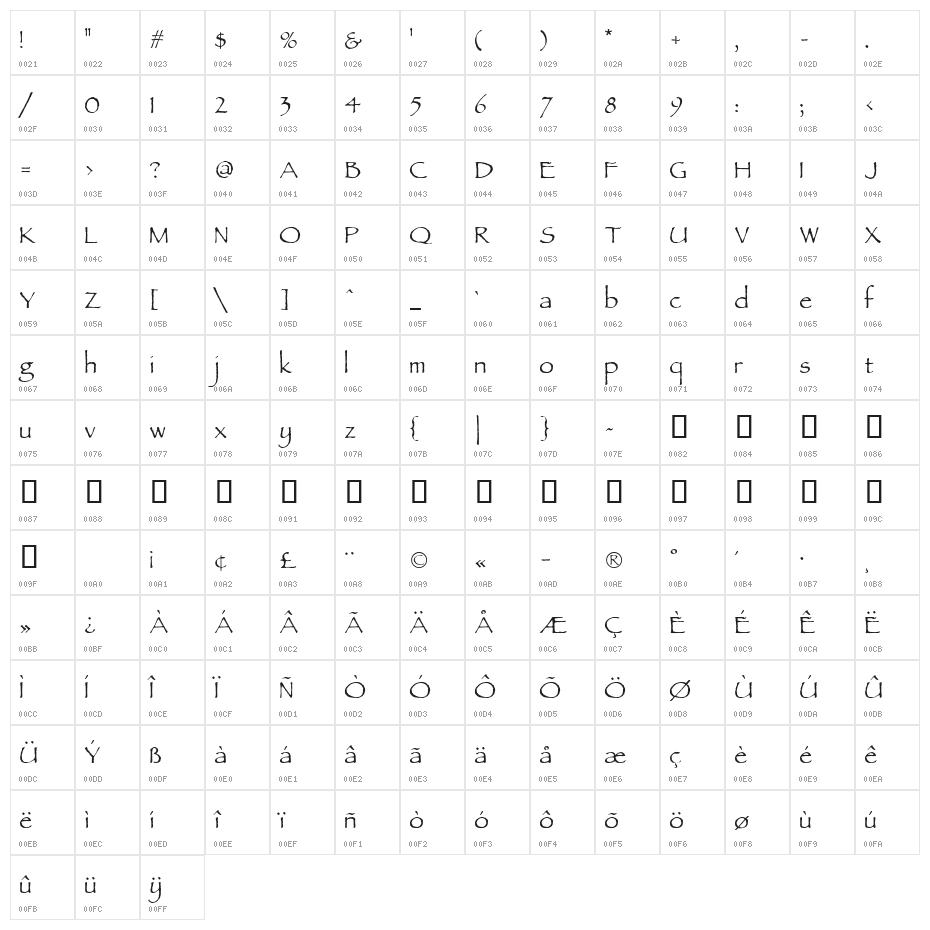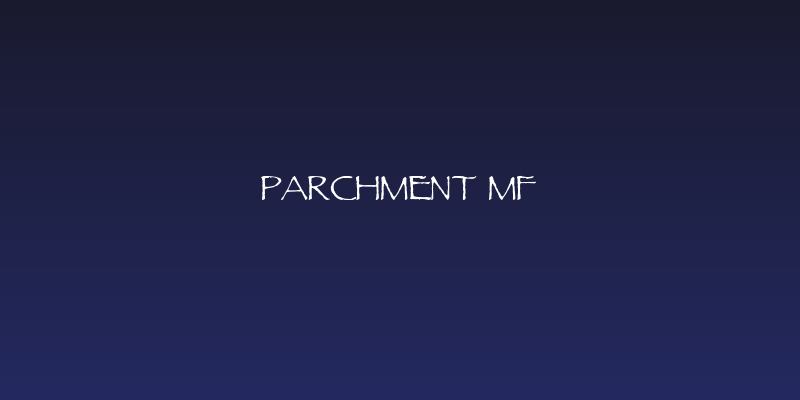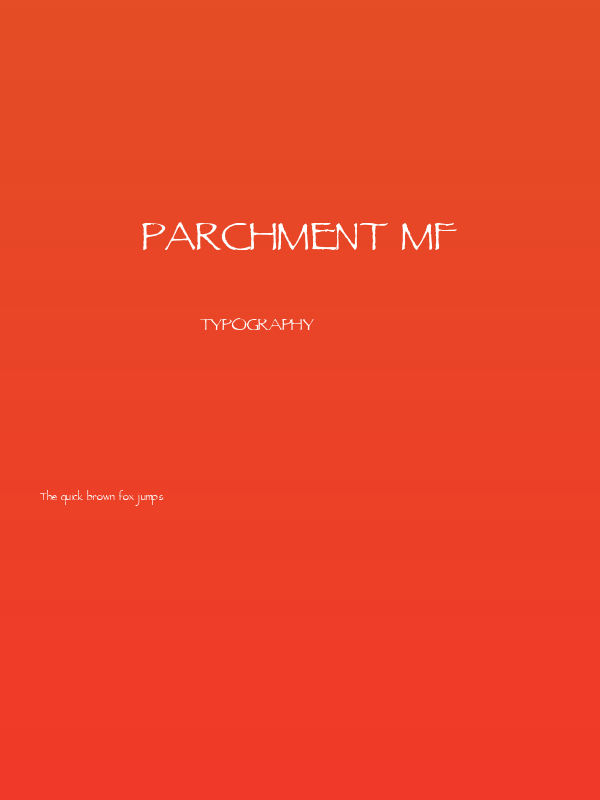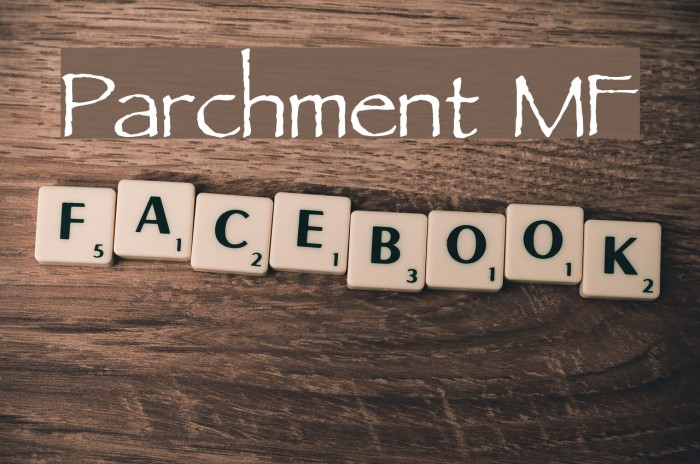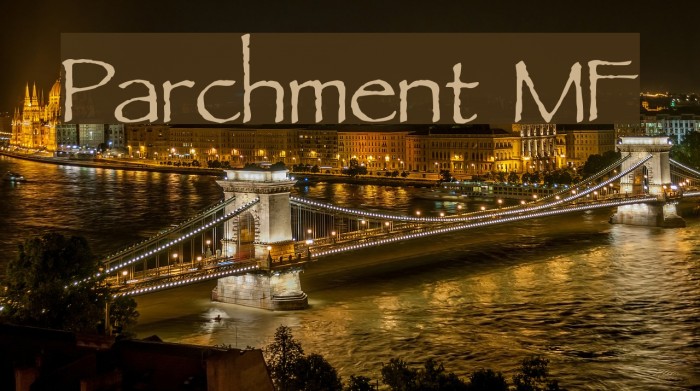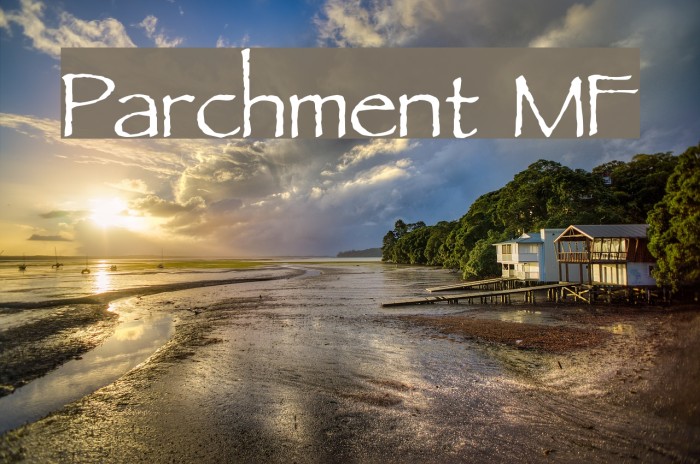
Parchment MF Font
Parchment MF Description
This font exudes a historical and elegant charm, reminiscent of ancient manuscripts and calligraphy. The characters are crafted with a slightly uneven, hand-drawn appearance, giving them a unique and artistic flair. The uppercase letters are bold and prominent, while the lowercase letters maintain a consistent flow with gentle curves and subtle flourishes. The numbers and special characters complement the overall aesthetic, maintaining the same hand-crafted style. This font is perfect for projects that require a touch of antiquity and sophistication, such as invitations, certificates, or themed designs.
| Use Case | Headlines, Artistic projects, Themed designs |
| Proposed Projects | Ideal for invitations, certificates, historical-themed designs, and artistic projects. |